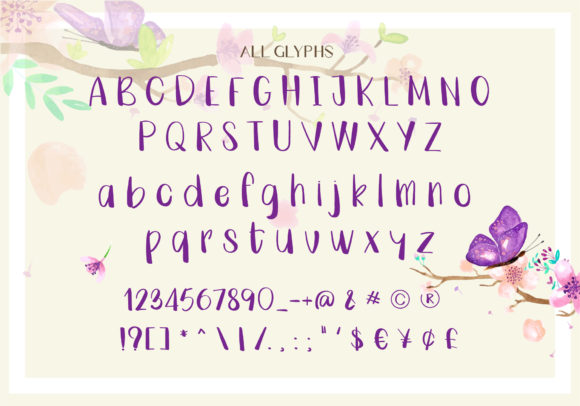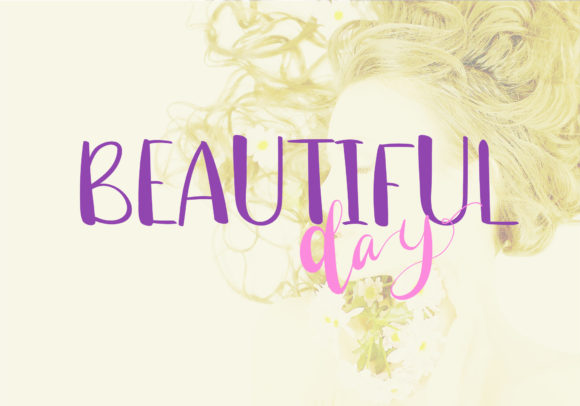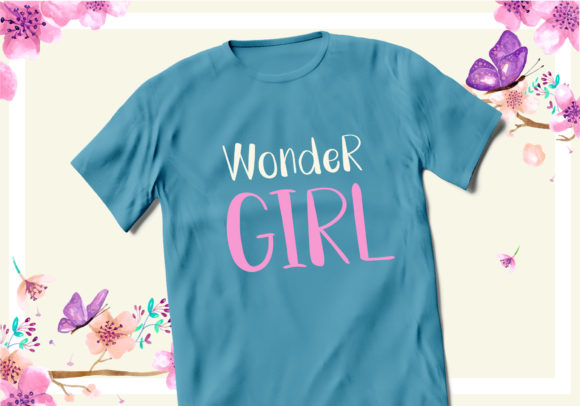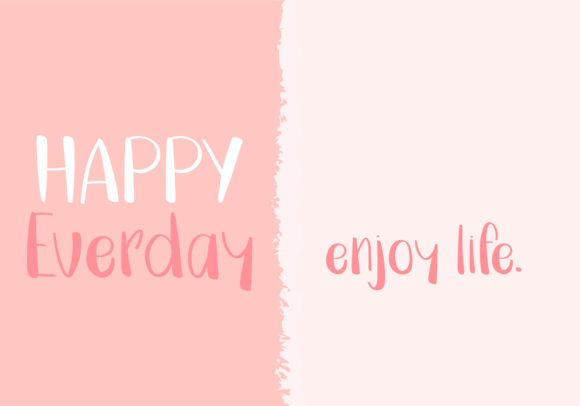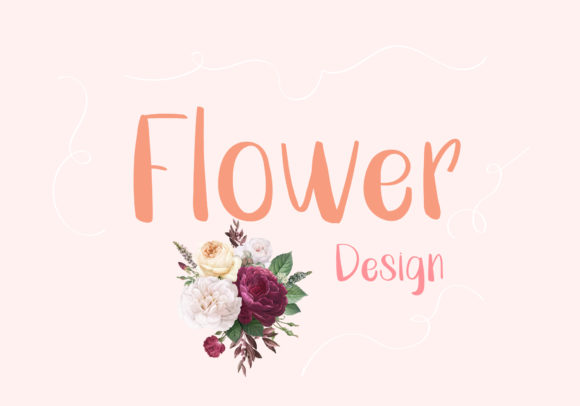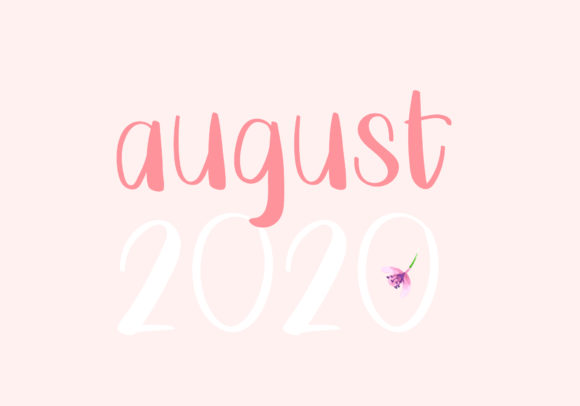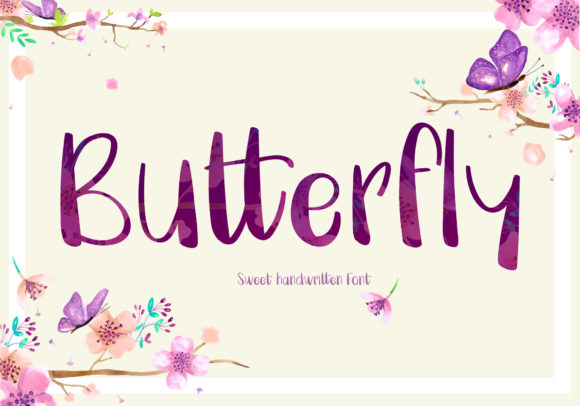
The Charm of Butterfly Font: A Designer’s Delight
I’ll never forget the time I was working on a wedding invitation project, and my client asked for a font that was ” elegant, yet playful, and totally Instagram-worthy.” I scoured the internet, tried out a gazillion fonts, but nothing seemed quite right. That was until I stumbled upon Butterfly Font. It was love at first sight! 💕
Butterfly Font feels equally charming and elegant. It looks stunning on wedding invitations, thank you cards, quotes, greeting cards, logos, business cards, and every other design that needs a handwritten touch. In this article, I’ll share my experience with Butterfly Font, its features, and how to make the most of it in your designs.
- ✨ Elegant and playful at the same time
- ✅ Perfect for handwritten-style designs
- 💫 Beautifully crafted with attention to detail
- 🎉 Highly versatile and adaptable
While Butterfly Font is an amazing font, there are a few things to keep in mind: 🤔
- ⚠️ Some characters may not work well in very small sizes
- ⚠️ Limited availability of certain special characters
Exploring OpenType Features
Butterfly Font comes with a range of OpenType features that can enhance your designs. Here are a few tips:
- Use glyphs to add decorative elements to your text
- Experiment with stylistic alternates to create a more unique look
- Take advantage of ligatures to add a touch of elegance to your text
The Backstory of Butterfly Font
Butterfly Font was designed with love and care by a talented type designer. The font’s creator was inspired by the beauty of butterflies and the elegance of handwritten script. The result is a font that’s both charming and sophisticated.
Q: What is Butterfly Font best used for?
A: Butterfly Font is perfect for designs that need a handwritten touch, such as wedding invitations, thank you cards, quotes, and greeting cards.
Q: Is Butterfly Font suitable for body text?
A: While Butterfly Font is beautiful, it’s best used for headings or titles. For body text, a clearer font might be more suitable.
Q: Is Butterfly Font available in different languages?
A: Butterfly Font may not support all languages, but it does include a range of characters and glyphs to help with multilingual designs.